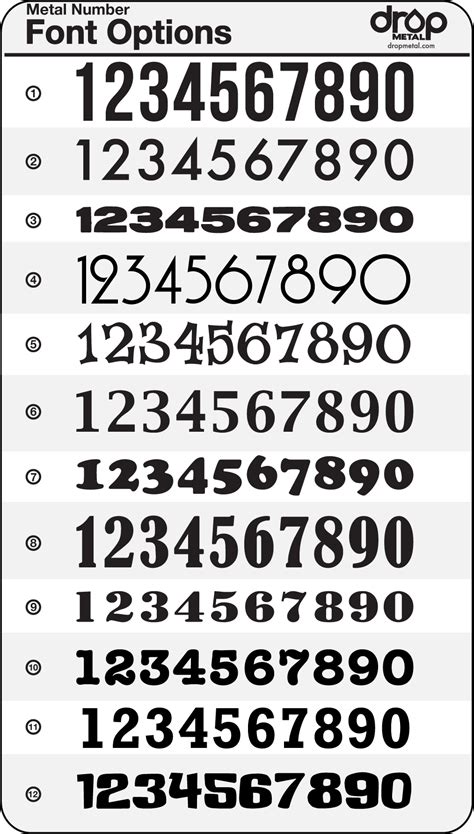
15 Different Types Of Number Fonts Images Different Font Styles
Font Types For Numbers. Web best number fonts for awesome designs: Lato was first brought to us.
15 Different Types Of Number Fonts Images Different Font Styles
Web 50+ best number fonts for displaying numbers | design shack. This is not a complete collection, many other fonts on. This creative brush font comes with a set of unique number digits that’s perfect for designing greeting cards, t. Web best number fonts for awesome designs: Number fonts is a style that is dedicated to just the number letters. Web making the web more beautiful, fast, and open through great typography Didone room numbers display font family. This google font is all about simplicity and elegance. Crimson text rings of other classic fonts that. Lato was first brought to us.
Crimson text rings of other classic fonts that. This google font is all about simplicity and elegance. Lato was first brought to us. Web 50+ best number fonts for displaying numbers | design shack. Number fonts is a style that is dedicated to just the number letters. This creative brush font comes with a set of unique number digits that’s perfect for designing greeting cards, t. Didone room numbers display font family. Web the best number fonts 1. Crimson text rings of other classic fonts that. Web best number fonts for awesome designs: This is not a complete collection, many other fonts on.